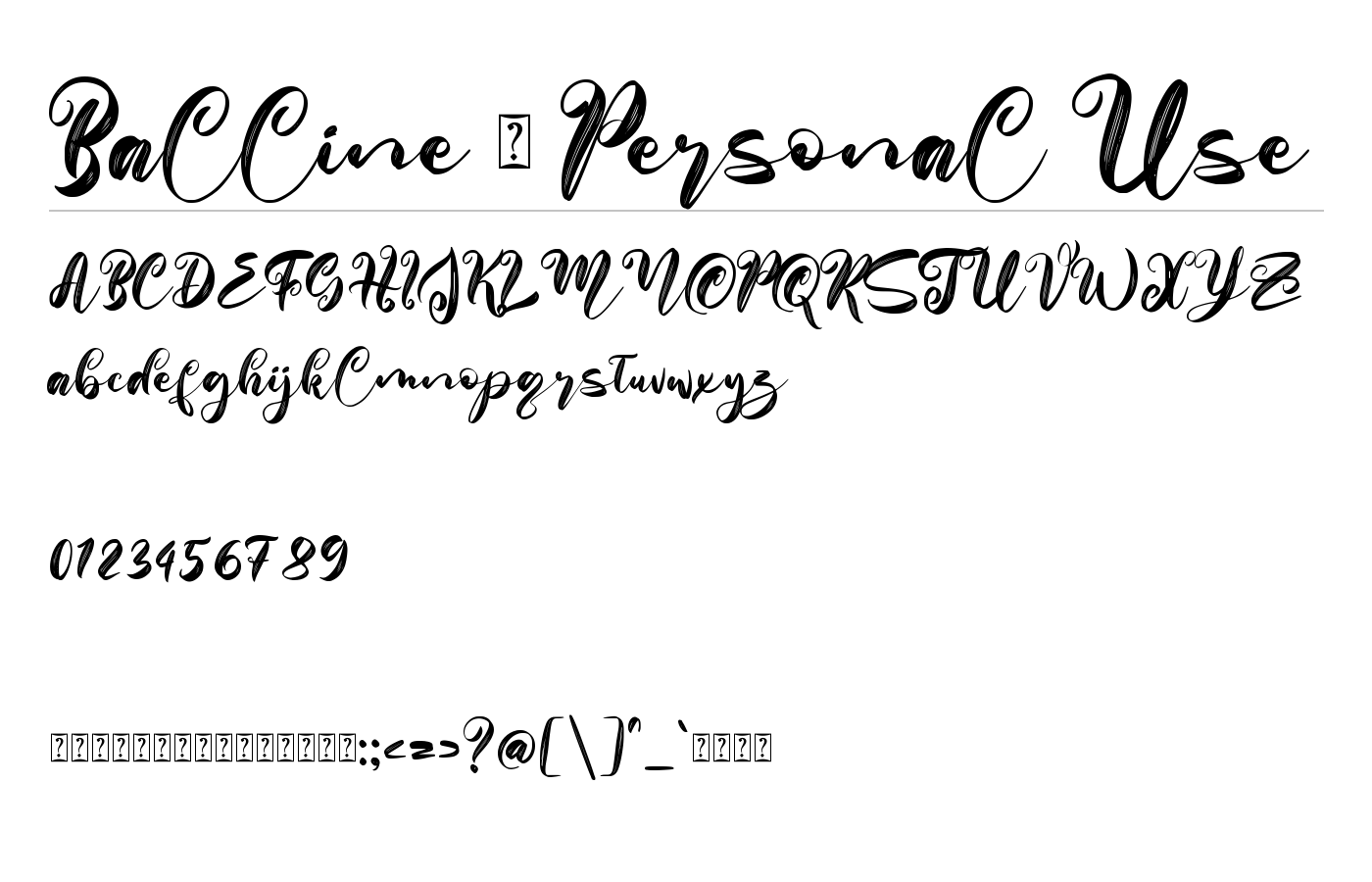
Balline is a flowing script font with a lively, hand-brushed style that combines thick and thin strokes for a bold yet elegant look. Its playful and slightly informal charm makes it perfect for creative projects like invitations, branding, and logos where a personal, artistic touch is desired. This font works best in display uses where expressive personality and warmth are key.
Balline Font
About Balline Font
| Font family | Balline Font |
| Designer | Aldedesign x Nox Studio 2021 |